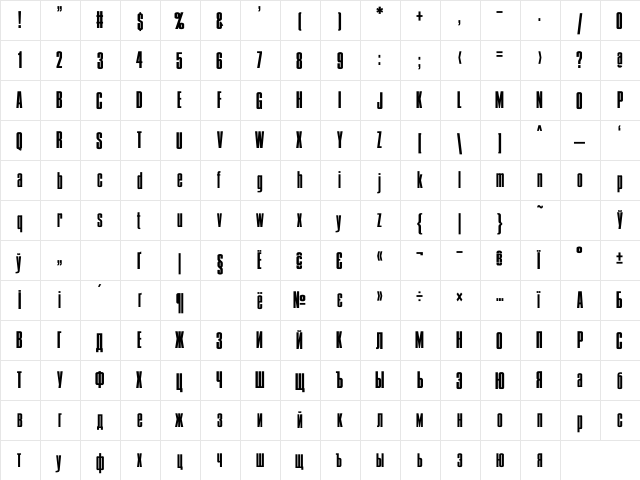
Condens thn Regular
Design Context for Condens thn Typeface
Condens thn offers clean, dependable letterforms without strong stylistic allegiance, making it a practical choice for designers who need flexibility. The condensed width makes it efficient for tight spaces without sacrificing legibility.
Pro Tip: Use Condens thn in both headline and body roles to test its range before committing to a single application.